Merisca
Merisca is a condensed serif that would work well for branding luxury goods or for poster or editorial design. It features some elegant alternate designs that bring the shapes to life.
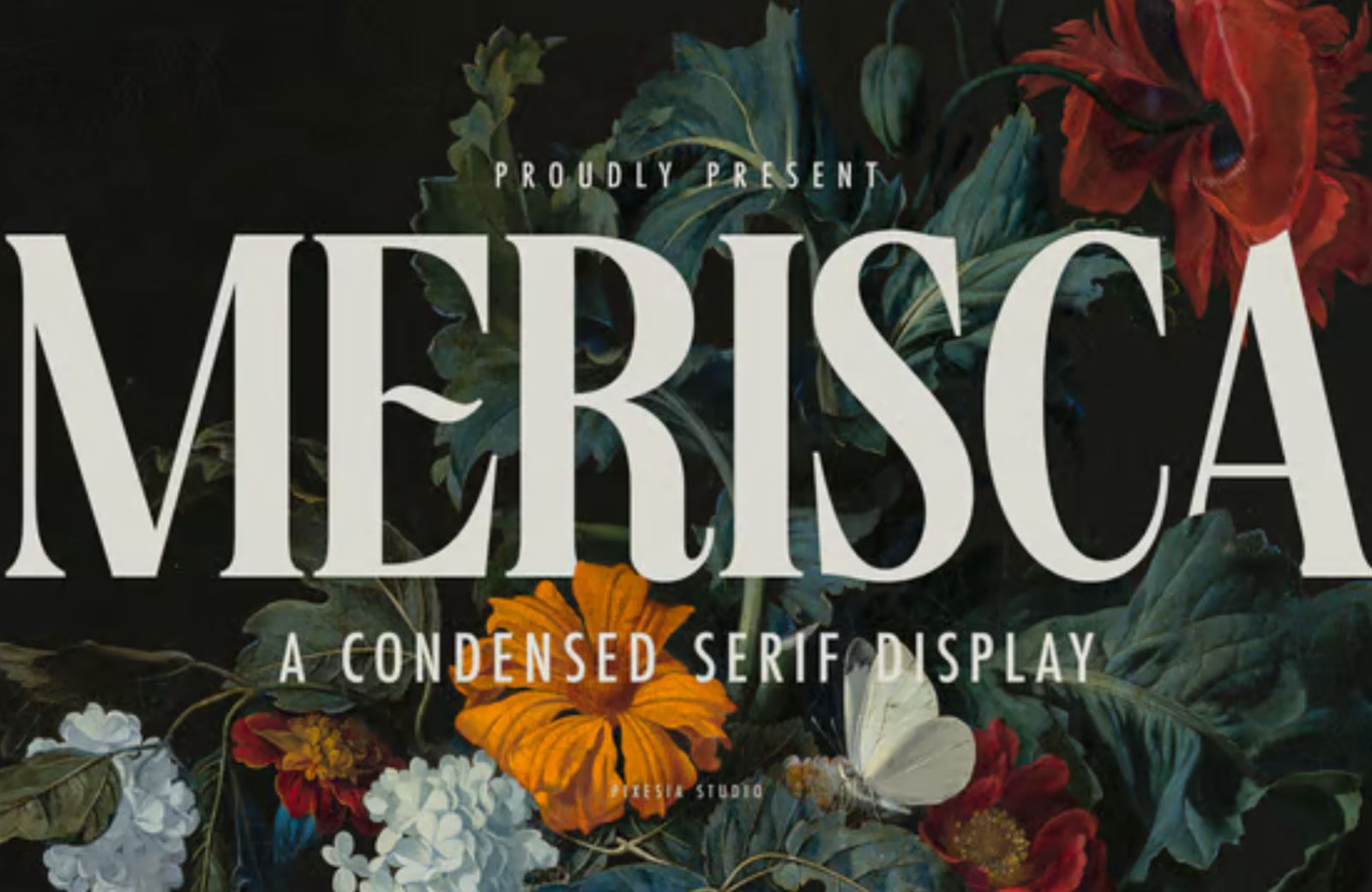
Family
Family is a lovingly detailed modern serif. It is based on the early 20th-century typeface Clearface. The updated version has been rethought for contemporary use.
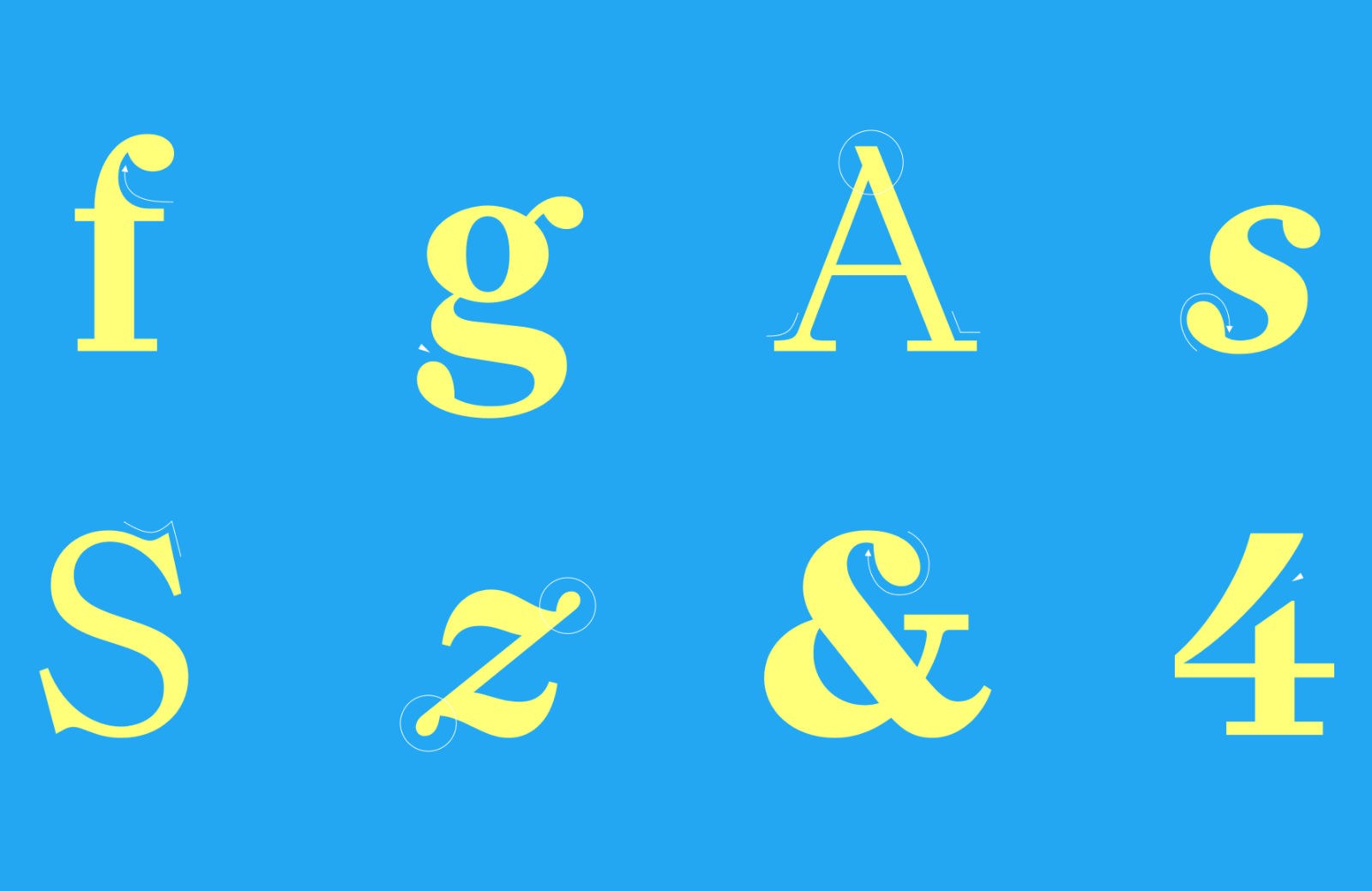
Natri
Natri is a display face inspired by calligraphy. The expressive strokes have been replaced with a consistent angled approach that creates a 3D effect at larger sizes.
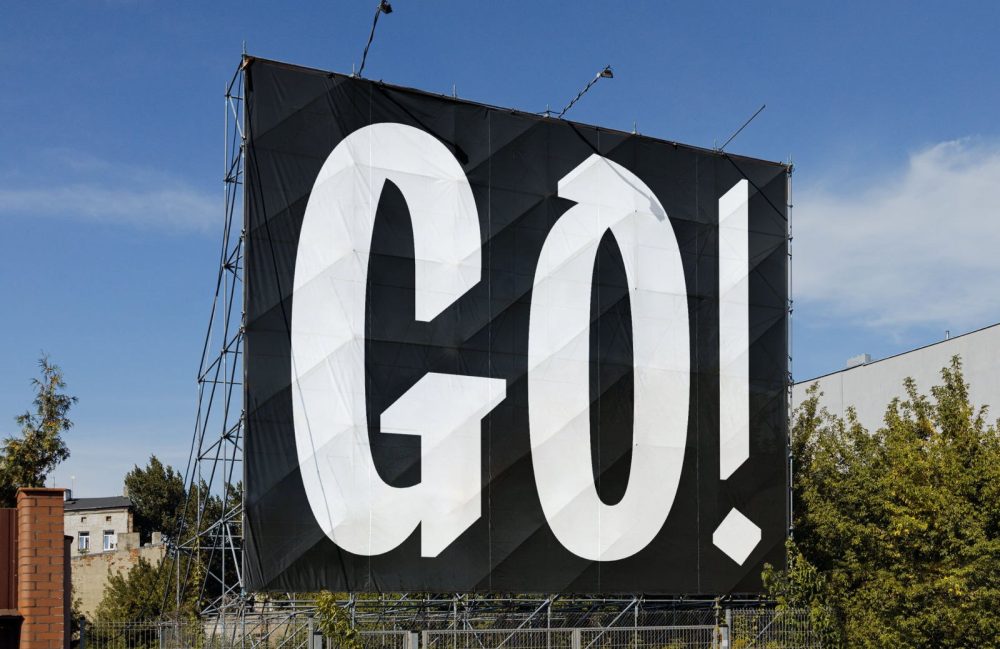
Atica
Atica is inspired by German geometric sans serifs. It is unapologetically engineered. The typeface has just had Light, and Extra Light weights added.
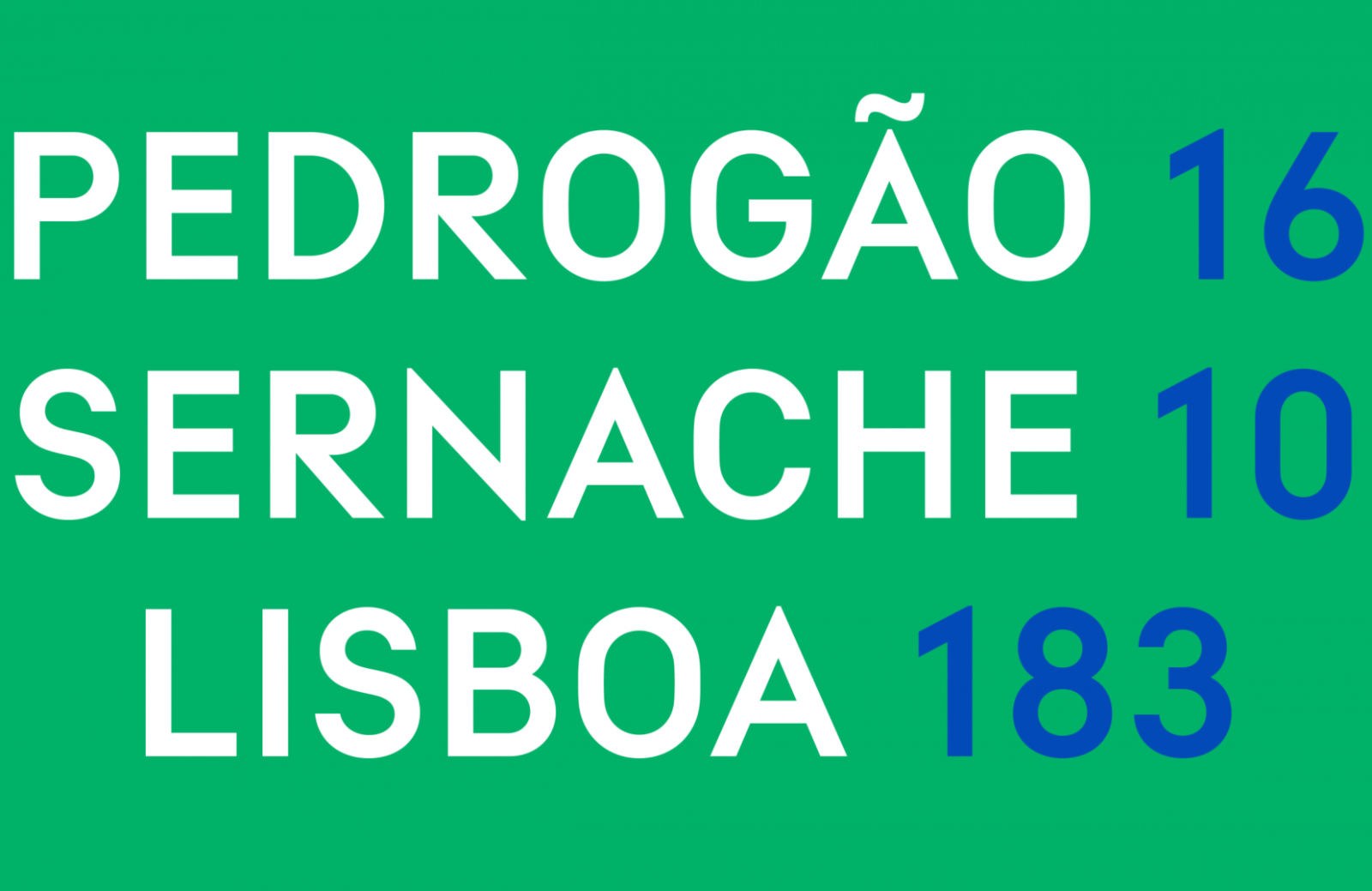
Acorn
Acorn is a beautiful sans-serif that combines simple shapes with vintage-inspired strokes. It’s a minimalist approach to the Art Nouveau trend that we rarely see.
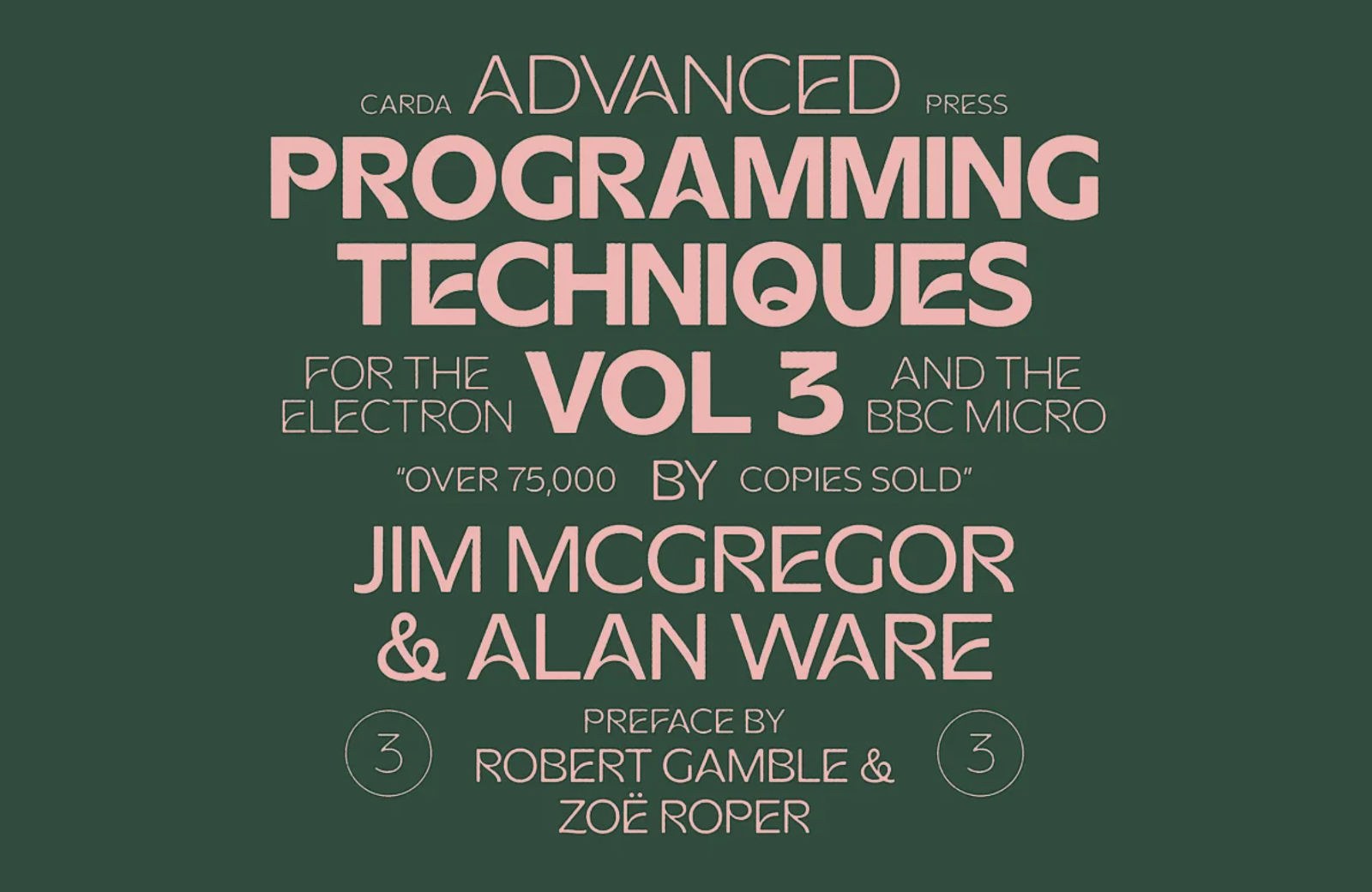
Inflated Foil
Inflated Foil is an unusual typeface utilizing color bitmap font technology. It’s 3D-rendered with a glossy metallic finish that looks like foil balloons. It would make a great poster.
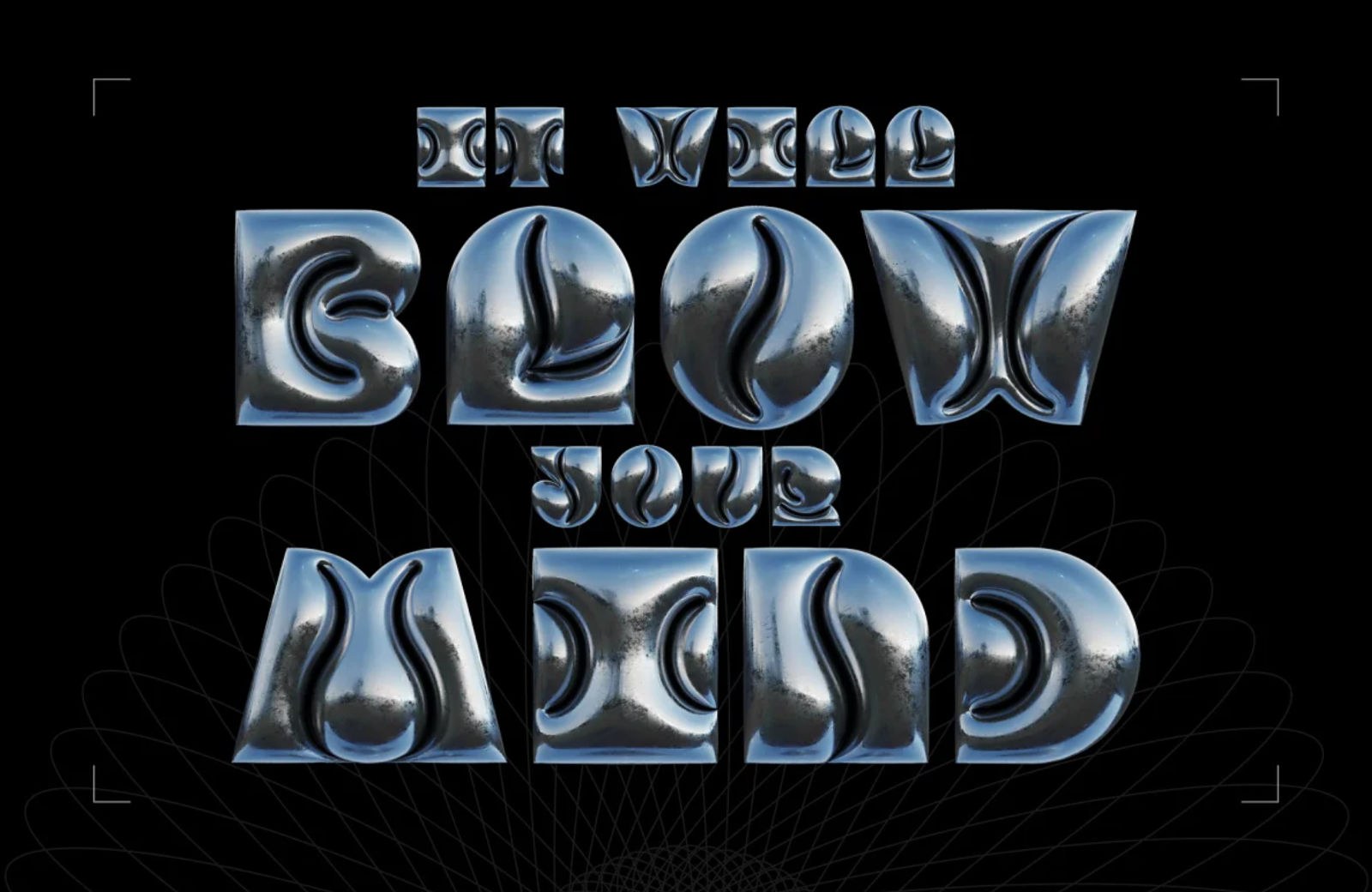
TT Commons Pro
TT Commons Pro has been updated to include new compact styles and a variable font. The geometric sans serif is highly usable for a variety of design applications.
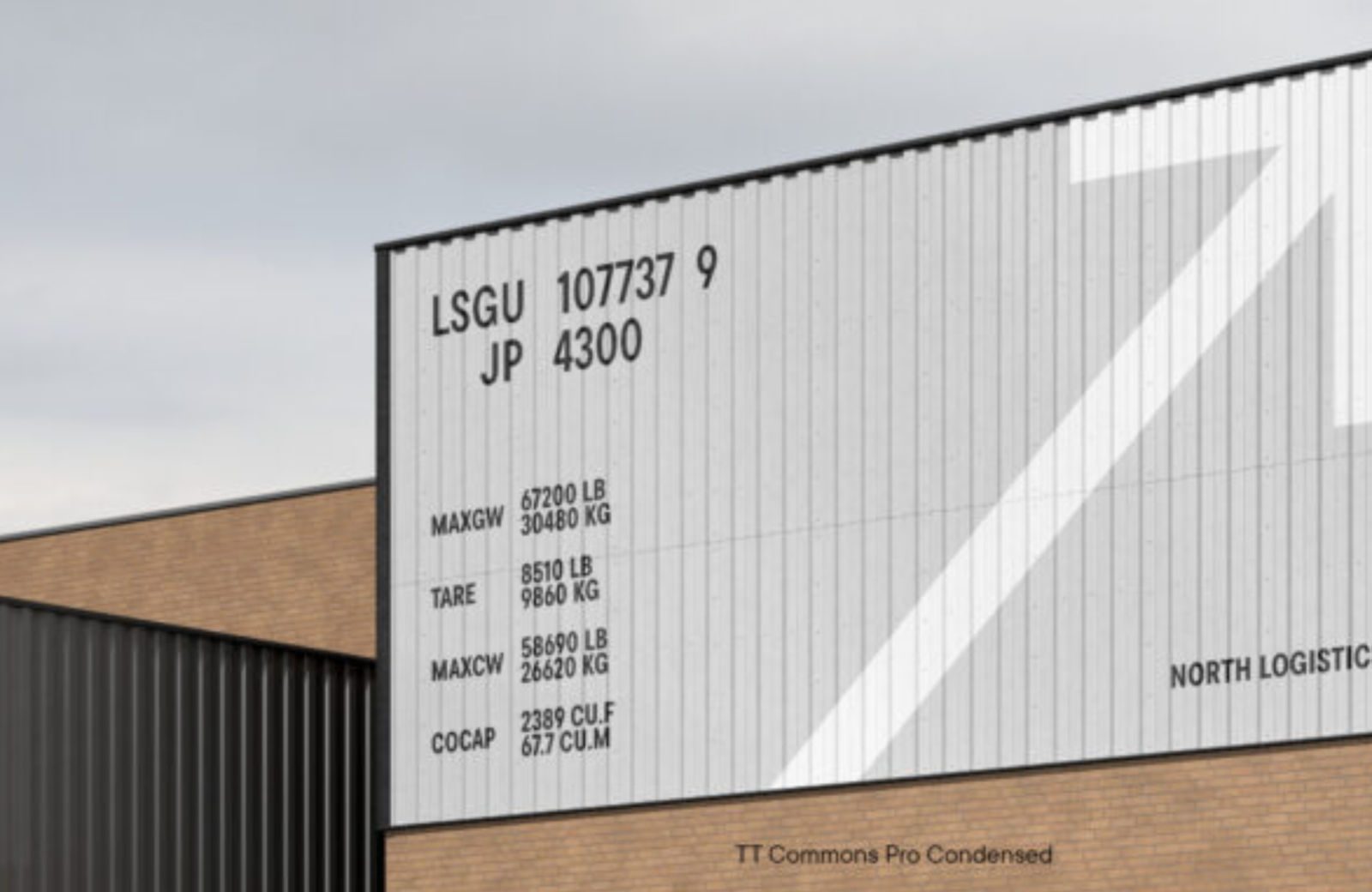
MC Belotra
MC Belotra is a display face with graceful curves and understated serifs. The low-contrast strokes and chunky terminals create a confident but relaxed typeface.
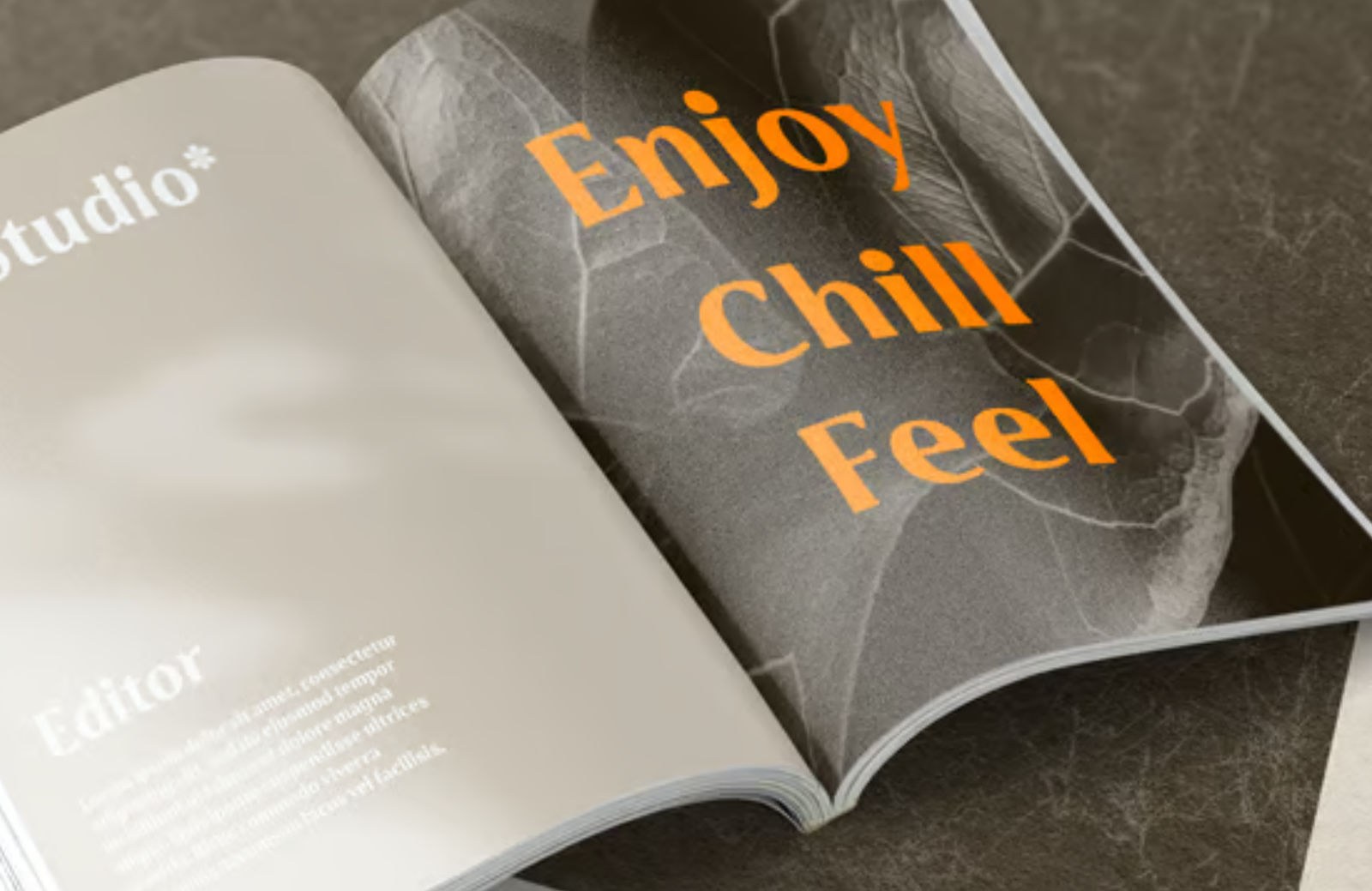
Aberford
Aberford is the ideal choice to convey a sense of John Wayne-era True Grit. It’s perfect for branding companies selling whiskey, denim, or tools.
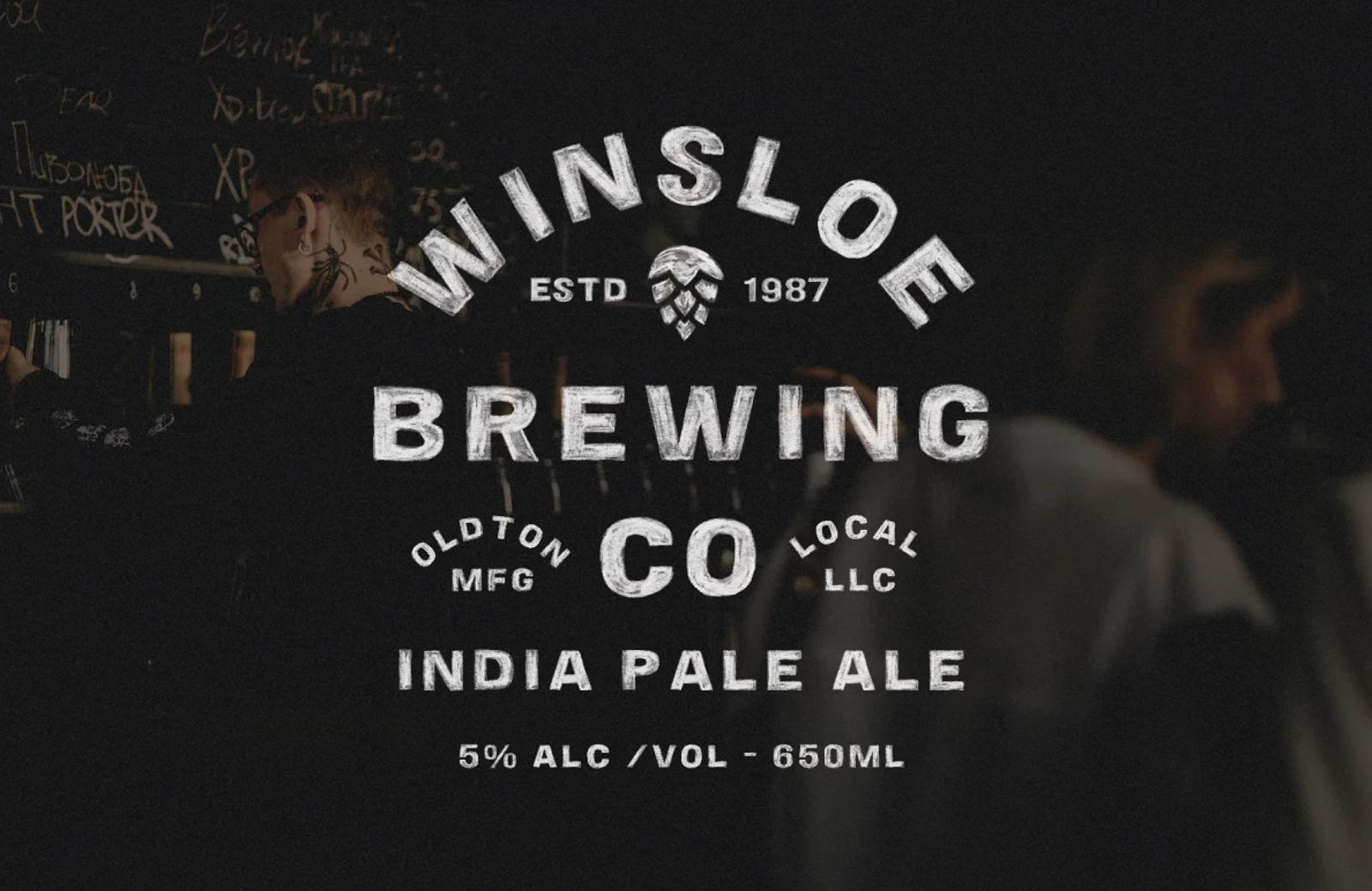
Prelo Pro
Prelo Pro is an updated and extended version of the popular Prelo typeface. It’s legible on screens and is neutral enough to pair well with display-sized fonts.
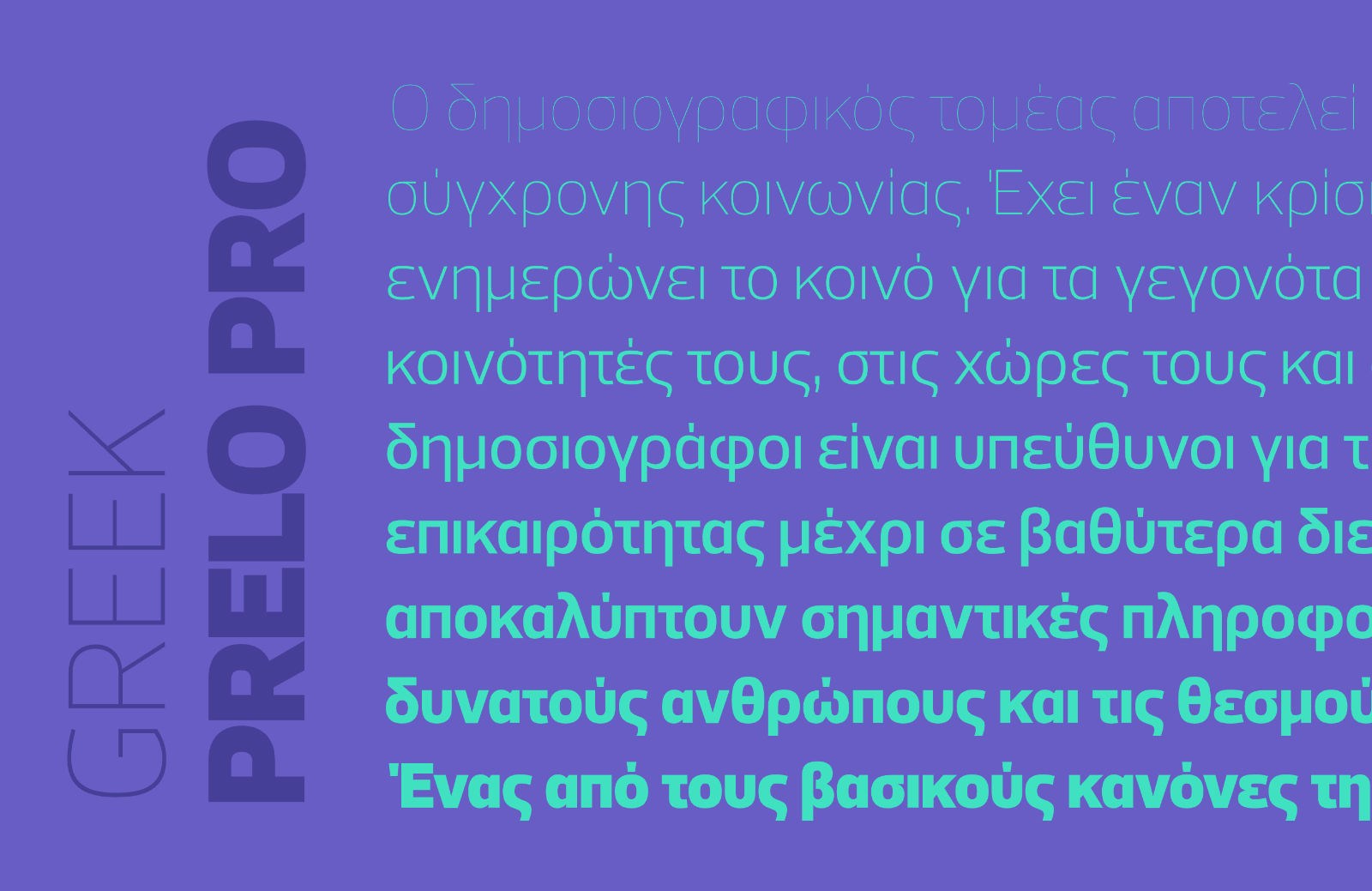
Ducktail
Ducktail is an interesting combination of display and sans-serif type. It features an angled stroke on the end of some characters that feels reminiscent of brush calligraphy.
Sonja Zanet
Sonja Zanet is a nicely drawn typeface that’s an excellent choice for posters and editorial work. It has extremely rounded shapes, giving it a friendly feeling.
Neureal
Neureal is a reverse-contrast typeface created collaboratively with computer-generated shapes based on visual distortions. It has regular and monospaced versions.
Figra
Figra is a modern sans serif that’s ideal for branding design. It has nicely rounded corners and smooth shapes that soften the formality of its letterforms.
Kanakira
Kanakira uses ink traps to create a sense of three dimensions within its letterforms. It’s a versatile sans-serif that works well for editorial design.